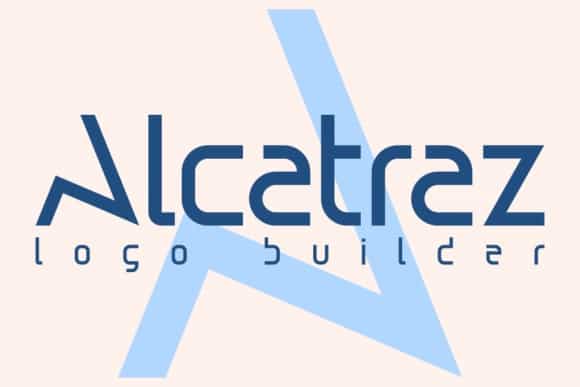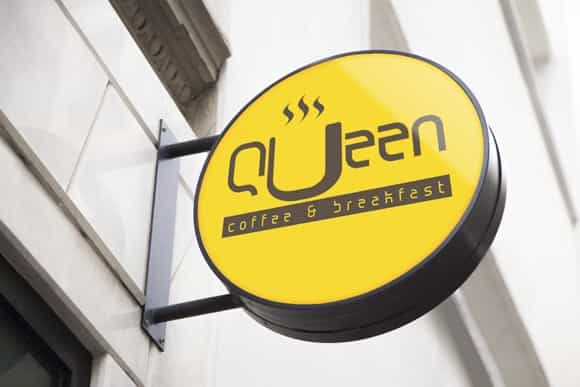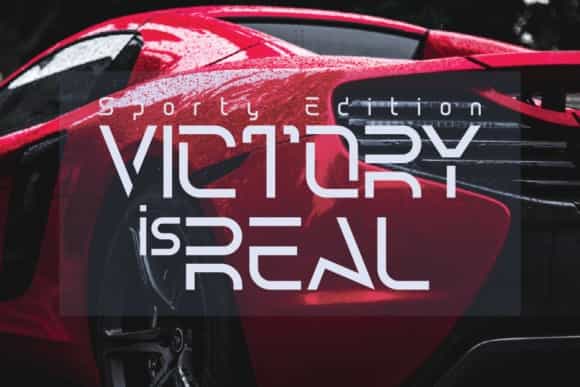
Discover Alcatraz Display Font, part of the Sans Serif Display collection—a versatile and unique font perfect for adding a personal touch to your projects. Download it for free and enjoy crafting designs with style, from invitations to social media posts. This font is available exclusively for personal use, giving you the freedom to create without limits. Unlock your creativity with Alcatraz Display Font today!
Alcatraz Font is a type of font that has uppercase letters, numerals and also a wide range of punctuation. It is a font without any serifs and with the modern style. It was designed for the poster, web design, branding, illustrations, badges and some other works.